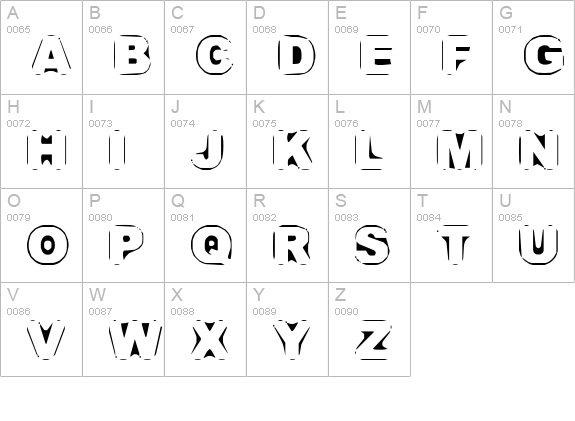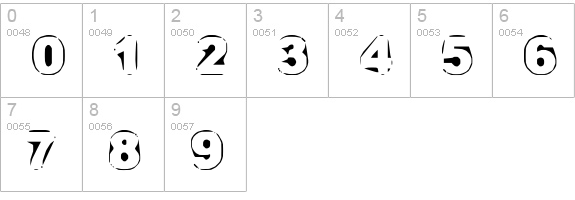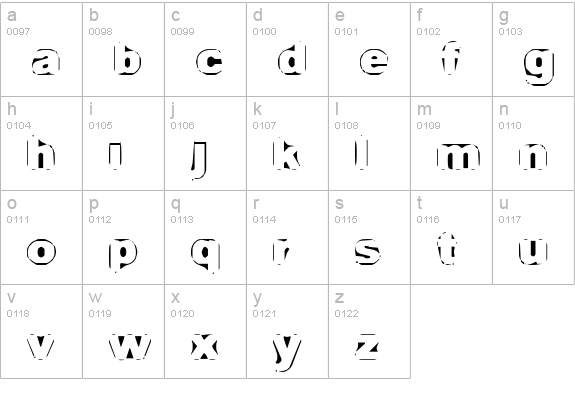
Persona Font Details
Introducing Persona, a stunningly elegant font that captures the essence of sophistication and versatility. With its timeless appeal, Persona effortlessly blends classic charm with a modern twist, making it the perfect choice for a wide range of creative projects. This free typeface showcases a harmonious balance between sharp lines and smooth curves, creating a visually pleasing aesthetic that is both pleasing to the eye and easy to read. Whether you're designing a logo, crafting a headline, or creating a stylish invitation, Persona is sure to make a lasting impression. But what sets Persona apart is not just its impeccable design, but also its accessibility. This exquisite font is freely available to download at FontsMarket.com, making it a valuable asset for designers, content creators, and typography enthusiasts alike. With just a few clicks, you can elevate your projects with the exquisite beauty of Persona, all without breaking the bank. Persona's extensive character set includes uppercase letters, lowercase letters, numerals, punctuation, and a wide range of special characters, ensuring that you have all the tools you need to bring your creative visions to life. Its versatile nature allows it to seamlessly adapt to any design concept, whether it be a high-end fashion magazine, a sleek corporate branding project, or a whimsical wedding invitation. With Persona, your creativity knows no bounds. Embrace the freedom to express yourself and elevate your designs with this exceptional font. Download Persona for free at FontsMarket.com and unlock a world of unlimited possibilities.